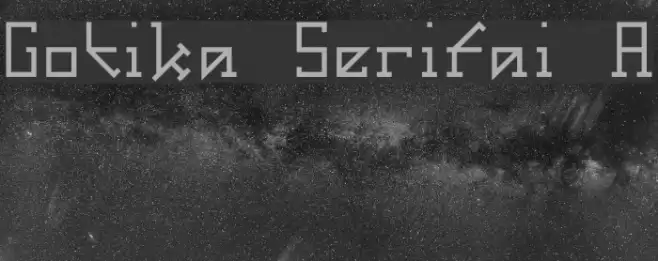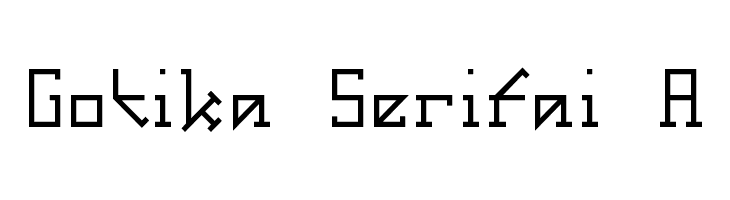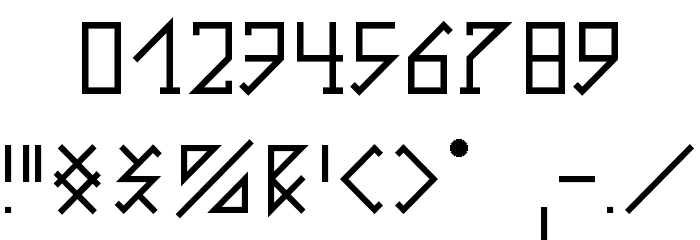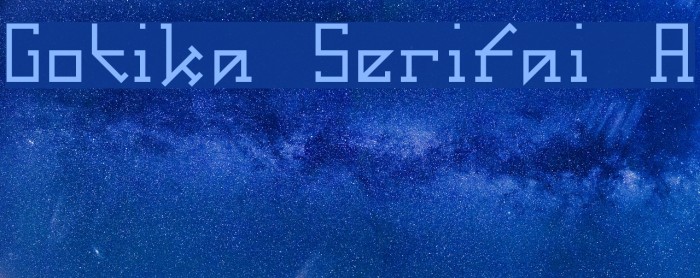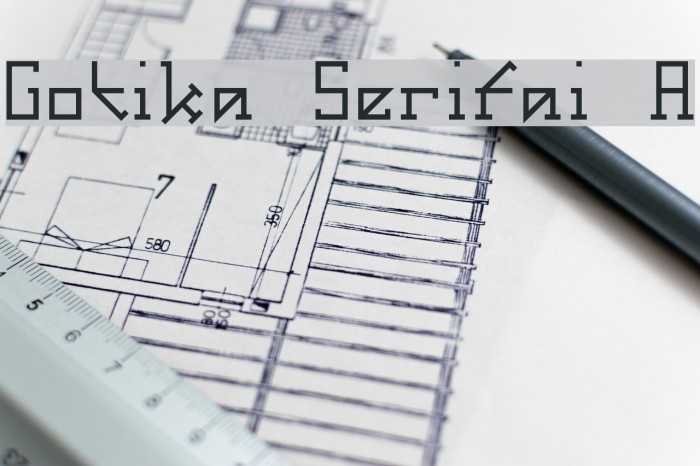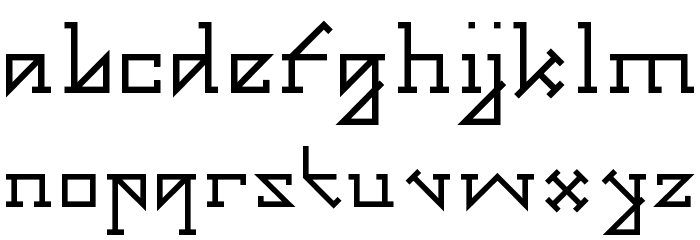
Gotika Serifai A Font
Gotika Serifai A Description
This font features a distinctive geometric style with sharp angles and a modern twist on traditional serif elements. The uppercase letters are bold and commanding, with unique diagonal strokes that give them a dynamic appearance. The lowercase letters maintain a consistent design language, offering a cohesive look across the typeface. Numbers and special characters are crafted with the same attention to angular detail, ensuring uniformity throughout. The font's design is both striking and versatile, making it suitable for a variety of creative applications.
A geometric serif font with sharp angles and modern design elements from Gothic fonts.
- Proposed Projects: Ideal for branding, posters, and editorial design where a bold and modern aesthetic is desired.